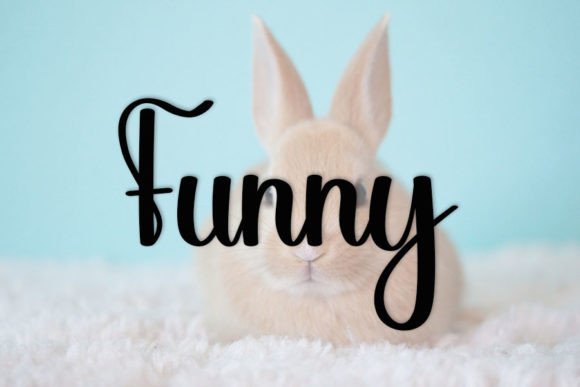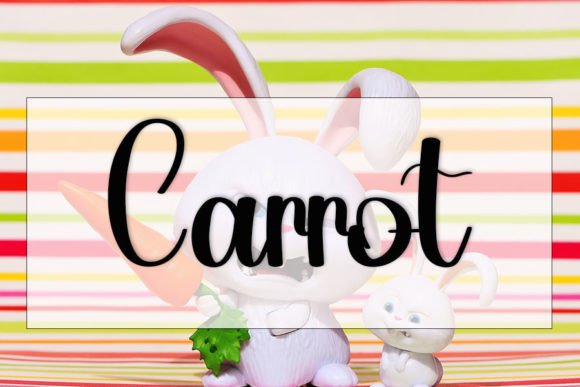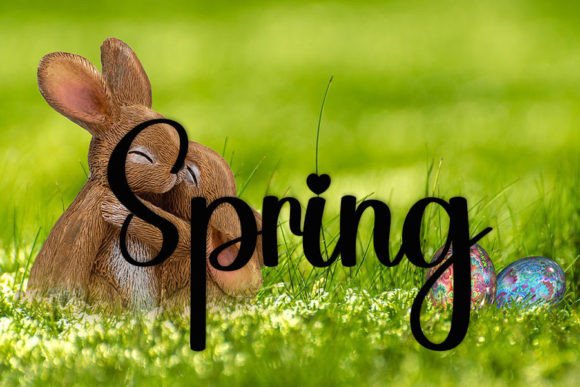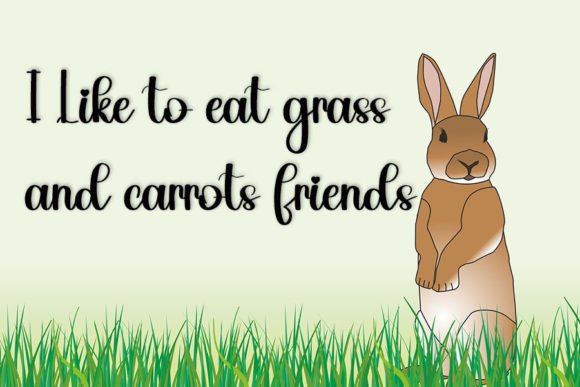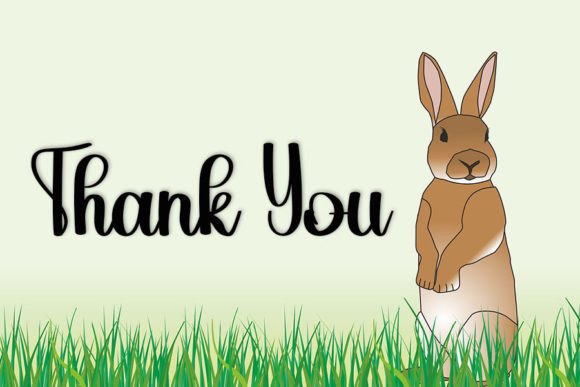
The Bunny Font: A Timeless, Handwritten Delight for Designers
I’ll never forget the moment I stumbled upon the Bunny font. I was working on a project for a client who wanted a elegant, yet playful touch for their branding. I had spent hours scouring the internet for the perfect font, but nothing seemed quite right. That was until I saw Bunny – a beautiful, handwritten font that instantly caught my eye. Its elegant touch and distinct style had me hooked from the very start.
An Honest Review of Bunny Font
- ✨ Elegant and sophisticated feel, perfect for high-end designs
- 💫 Unique and timeless style that sets it apart from other fonts
- 🎨 Versatile and can be used for a wide range of design projects
While I absolutely love the Bunny font, there are a few things to keep in mind. For example:
- ⚠️ Some users may find the font a bit too ornate for very casual designs
- 🤔 Limited availability of certain characters or glyphs, although this can be addressed with OpenType features
If you love the Bunny font, you may also want to try these similar fonts:
- Lobster – A elegant, cursive font with a similar feel to Bunny
- Pacifico – A beautiful, handwritten font with a more relaxed, beachy vibe
- Great Vibes – A stylish, script font with a similar sense of sophistication
- Alex Brush – A lovely, handwritten font with a more whimsical feel
The Story Behind Bunny Font
According to its creators, the Bunny font was inspired by the classic calligraphy of the 19th century. The designers wanted to create a font that was both elegant and approachable, with a unique personality that would stand out in any design. The result is a font that’s both timeless and versatile, perfect for a wide range of creative projects.
Q: What type of designs is Bunny font best suited for?
A: Bunny font is perfect for designs that require an elegant, sophisticated touch, such as branding, packaging, and stationery.
Q: Is Bunny font available in different weights or styles?
A: Currently, Bunny font is available in a single weight, but its elegant design and versatile nature make it suitable for a wide range of design applications.